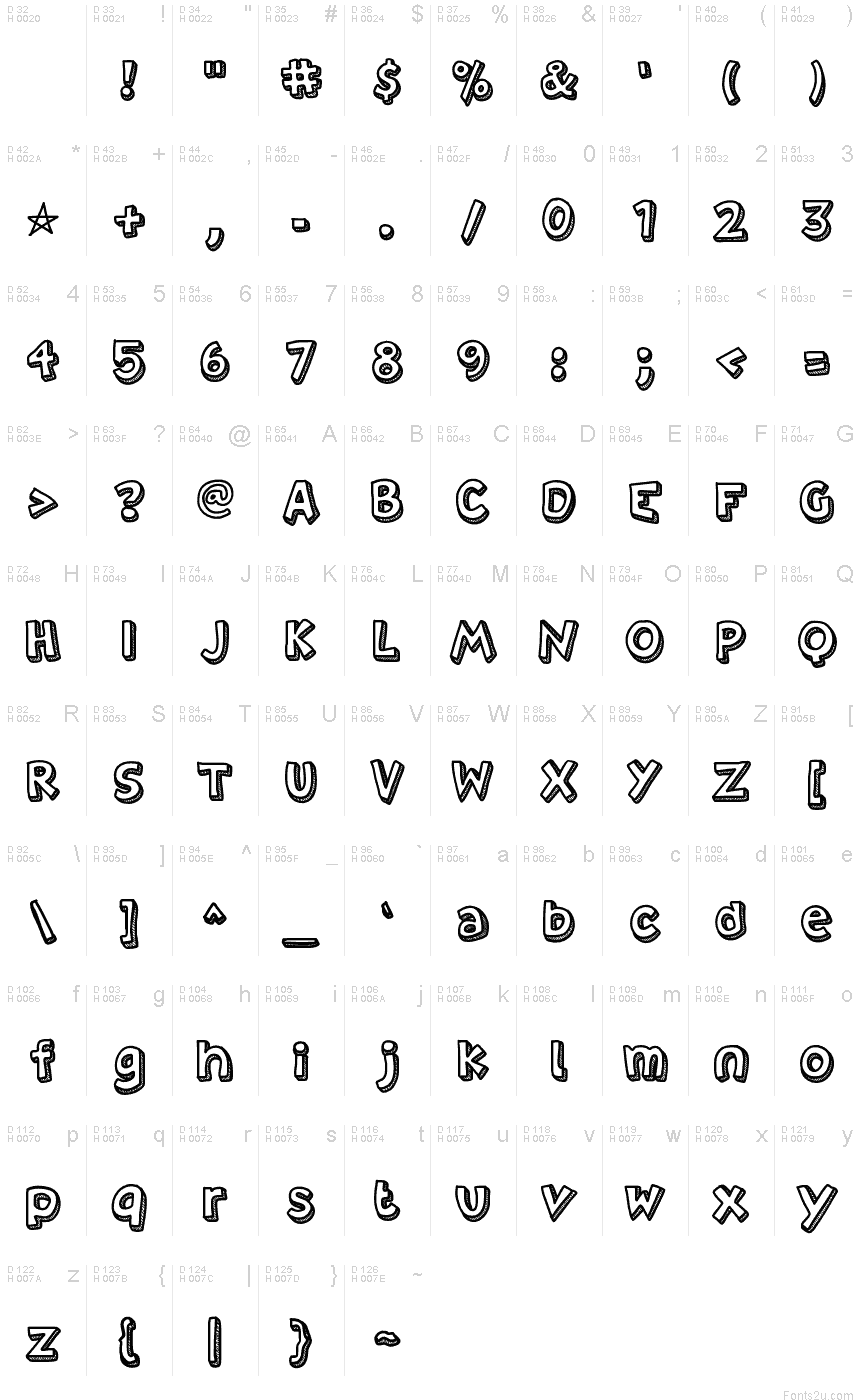
Villa by LDF is a free three-dimensional cartoon display font with broad, inflated letters and a lively sketched finish. Its uneven contours make the forms look hand-drawn, and the offset dark edging gives them the depth of cut-out signs. The dense hatched shading is especially distinctive.
Comic illustration and doodled graphics can echo the same loose outlines with bright, humorous artwork rather than highly polished realism, making Villa a natural fit for children's publishing, festival posters, and snack packaging. The oversized shapes and penciled shadow also suit animated title cards and playful merchandise, especially for comedy, food, or family entertainment.